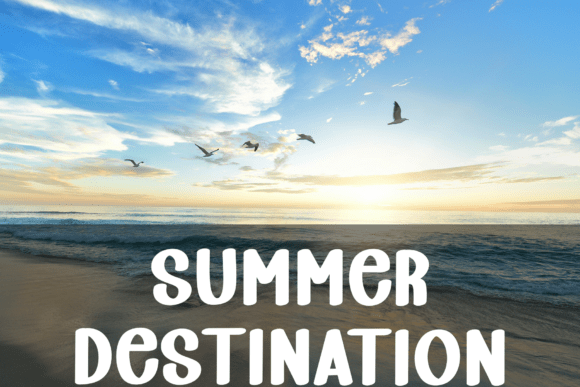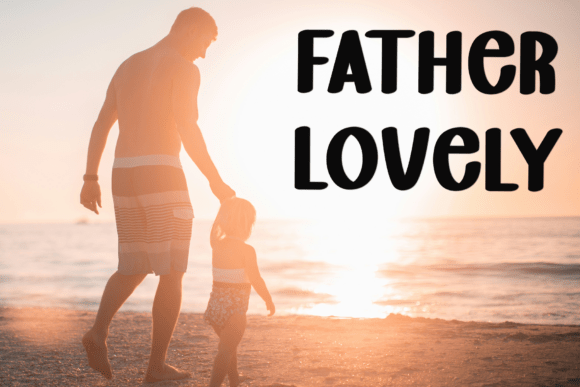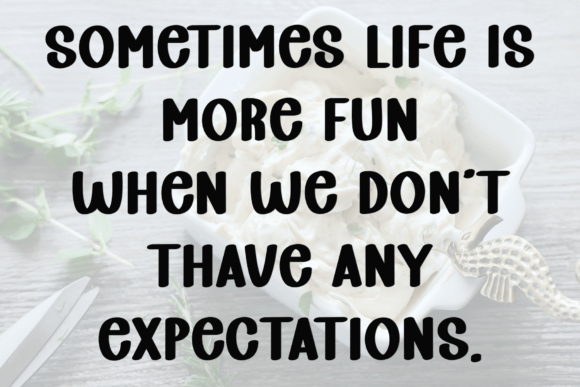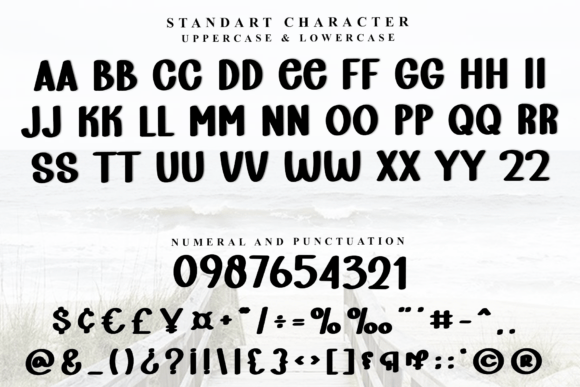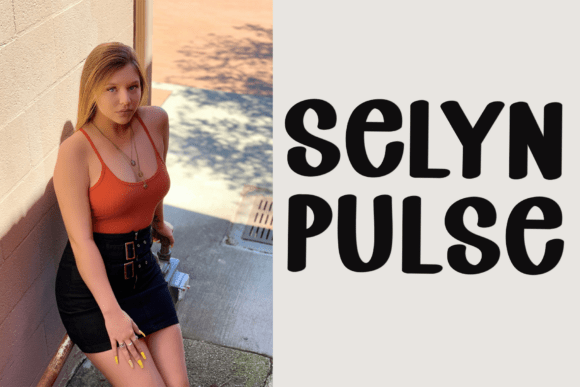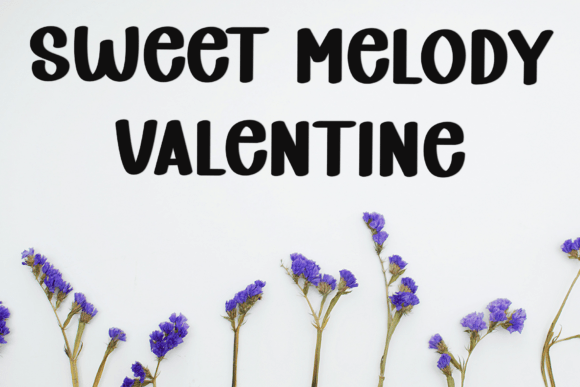
Introducing Banana Choise Font: The Ultimate Holiday Typeface
Are you looking for a font that embodies the spirit of the holiday season? Look no further than the Banana Choise Font! This festive and merry typeface is designed to bring a touch of enchantment to your designs, making it perfect for greeting cards, gift tags, and holiday-themed projects.
A Festive and Whimsical Flair
Banana Choise Font boasts decorative elements and a whimsical flair that instantly evokes the magic of the holiday season. Its unique design makes it stand out from other fonts, adding a cheerful and nostalgic ambiance to your words. Whether you’re designing a holiday greeting card, a gift tag, or a festive poster, this font is sure to make your project shine.
Banana Choise Font is a versatile typeface that is perfect for designers and crafters alike. Its decorative elements and whimsical flair make it an excellent choice for a variety of projects, including:
- Greeting cards: Create festive and personalized greeting cards for your loved ones.
- Gift tags: Add a touch of magic to your gift tags with this enchanting font.
- Holiday-themed projects: From festive posters to holiday-themed social media graphics, this font is perfect for any project that requires a touch of holiday cheer.
Why Choose Banana Choise Font?
So why choose Banana Choise Font for your holiday designs? Here are just a few reasons:
- Unique and festive design: This font is sure to make your designs stand out from the crowd.
- Versatile: Perfect for a variety of projects, from greeting cards to holiday-themed posters.
- Nostalgic ambiance: Instantly evokes the magic and nostalgia of the holiday season.
Tips for Using Banana Choise Font
Here are a few tips for getting the most out of Banana Choise Font:
- Experiment with different sizes and colors to add depth and dimension to your designs.
- Pair with other festive fonts for a unique and eye-catching look.
- Use the decorative elements and glyphs to add a touch of whimsy to your designs.
Whether you’re a seasoned designer or a crafter looking for a unique and festive font, Banana Choise Font is sure to delight. So go ahead, get creative, and let the magic of this beautiful font shine through in your designs!